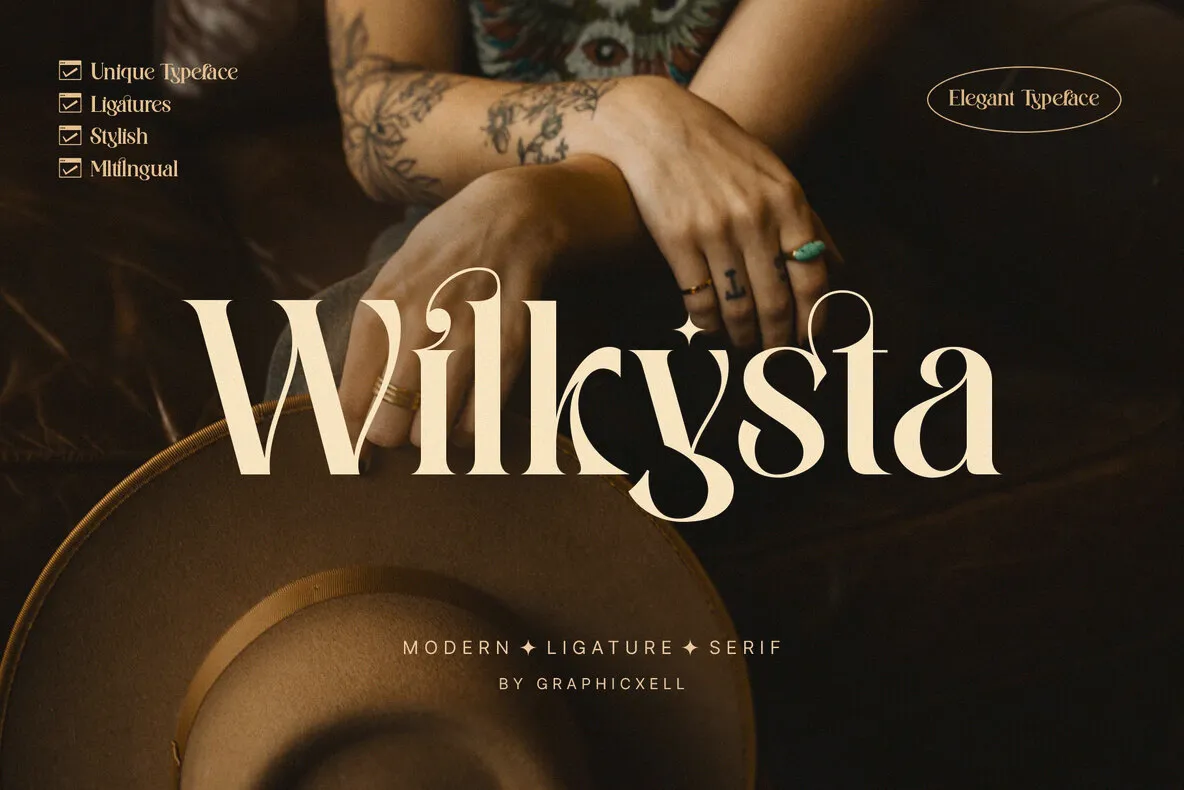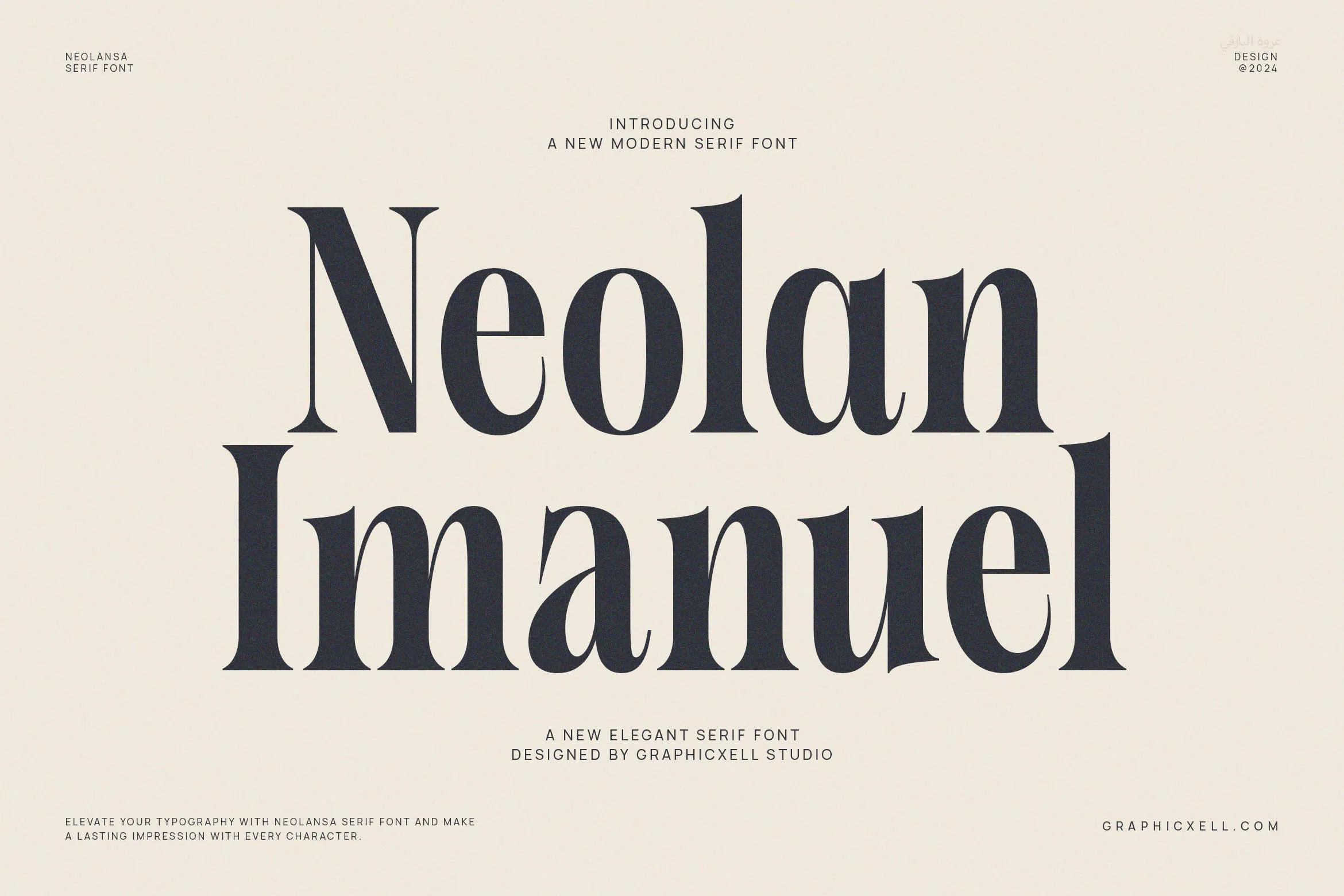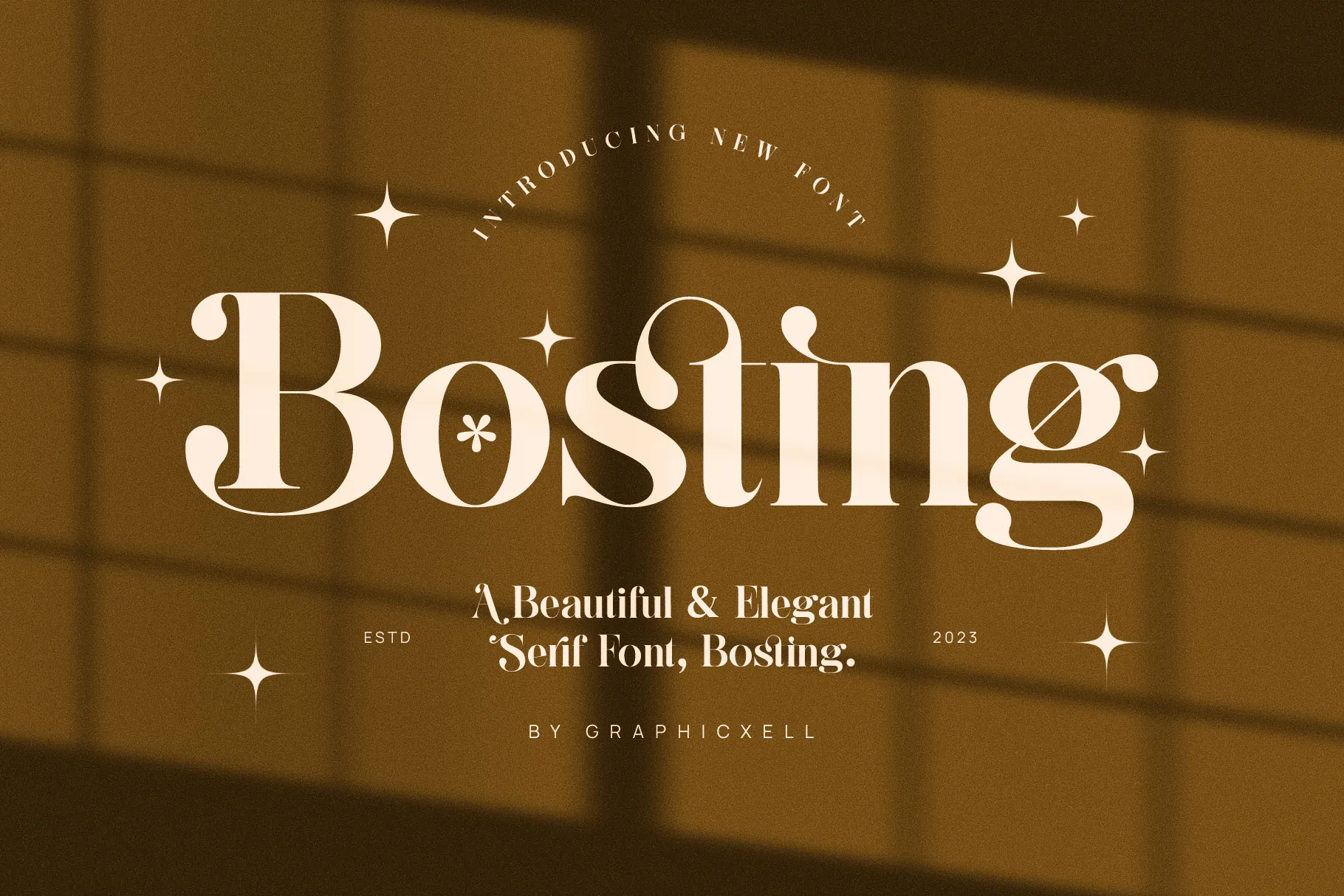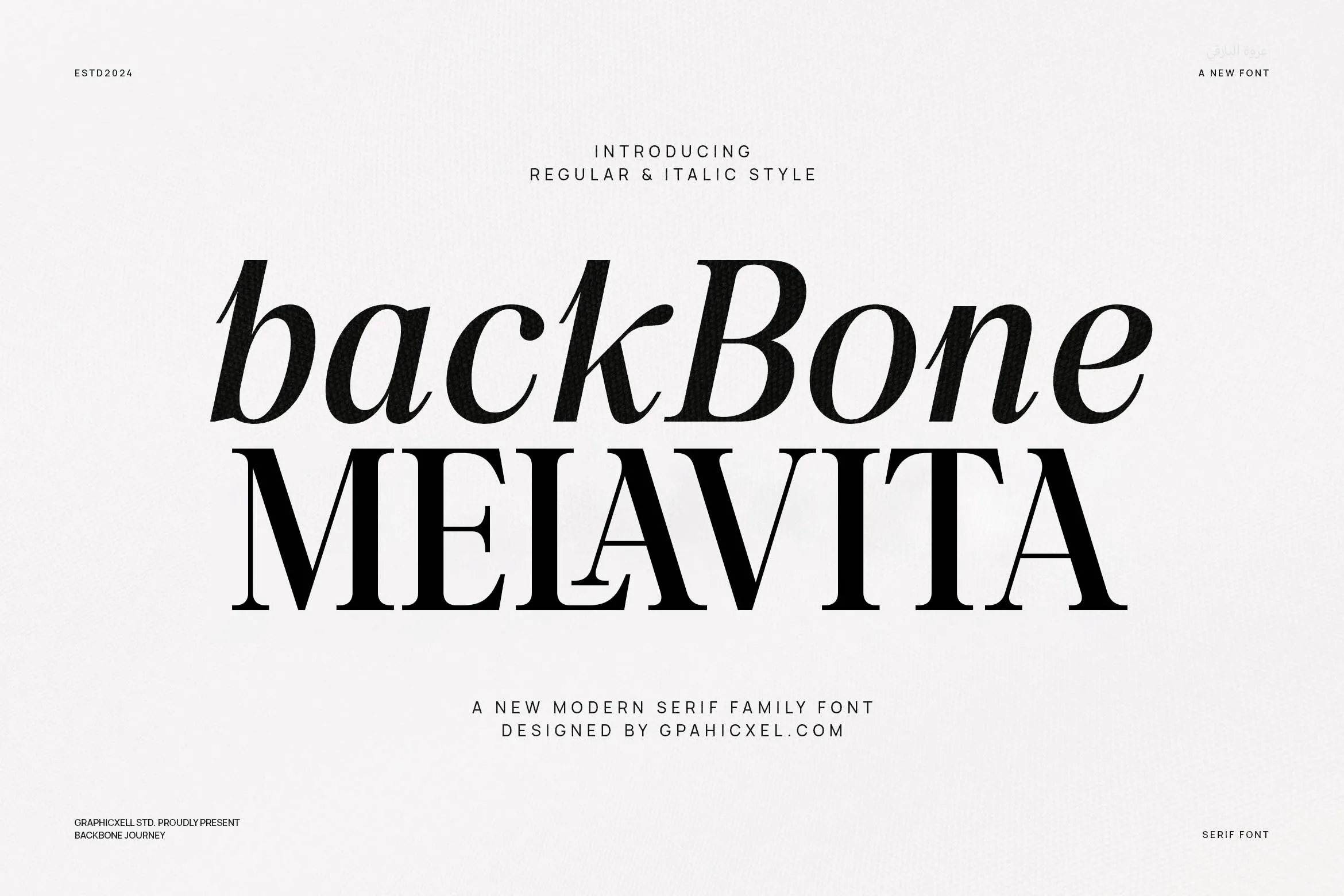
Are you looking to add a touch of grit and personality to your projects? Look no further than the world of Western fonts. They are a powerful tool for designers looking to create a bold and impactful visual aesthetic.
From classic serif styles to modern sans-serif designs, these bold and evocative typefaces evoke the spirit of the Wild West. They add a unique flair to posters, logos, packaging, and more.
Western fonts have a long history, beginning in the Roman Empire and the American frontier. The Romans created the Latin alphabet, which laid the groundwork for many Western typography. Over time, these fonts evolved with cultural and technological advancements, especially the invention of the printing press in the 15th century, which made them widely accessible.
In the American frontier, clear and readable fonts were needed for signage and advertisements. These designs were often hand-painted or printed on rough paper, leading to thick, robust letterforms with decorative serifs.
Western fonts, influenced by historical and practical needs, share certain characteristics that distinguish them from other typographic styles. These include:
These fonts are all about making a statement. Their thick letterforms create a sense of strength and presence, making them perfect for grabbing attention on posters, packaging, or logos.
Many Western fonts incorporate serifs, and decorative flourishes at the ends of letters. These serifs can be sharp and pointed, ideal for a more masculine design, or rounded and playful, suitable for projects with a more lighthearted Western theme.
A Western font often has a hand-drawn or vintage feel, achieved through subtle imperfections or textures in the letterforms. This evokes a sense of nostalgia and the Wild West era, making them perfect for designs that want to capture that historical spirit.
Despite their bold nature, well-designed Western typography prioritizes readability. The thick strokes are carefully balanced with clear letterforms to ensure the message remains clear and easily understood, even from a distance.
They are incredibly versatile and can be used for a wide range of design purposes, from branding and advertising to website design and editorial layouts. The key is choosing the right font with the appropriate boldness and serif style to match your specific project’s tone and message.
You can use them in numerous ways to enhance your designs. Remember, these fonts can be a powerful tool in your design arsenal, but it’s important to use them strategically. Here are a few tips:
These fonts work best when used in large sizes, where their bold details can shine. They are effective for headlines, logos, and branding elements. Consider how you can use their strong presence to draw attention to key elements in your design.
Explore the vast array of Western typeface styles available, from classic and traditional to modern and minimalist. Consider the mood you want to create and choose a font that aligns with that feeling. For example, a bold serif font might be perfect for a vintage-inspired project, while a clean sans-serif font could be ideal for a modern design.
Because of their strong presence, pair these fonts with simpler designs to avoid visual clutter. Give your font room to breathe! Leave plenty of breathing room between elements with white space for a balanced look. Too many competing elements will distract from the impact of your Western font choice.
Nail visual appeal and readability with smart spacing and alignment. Experiment with different letter spacing and line heights to find what works best for your chosen font. Make sure the alignment is consistent throughout your design to maintain a cohesive look.
Western fonts are perfect for projects with a Western, vintage, or rustic theme. They can add authenticity and a touch of nostalgia to your designs. Think about how to use them to create a sense of place or evoke a particular feeling.
Now, let’s dive into some fantastic, bold, stunning Western fonts that will infuse your designs with a Wild West flair.
Neolan Imanuel is a modern and elegant serif font that exudes sophistication. Its delicate strokes and subtle curves create a timeless and refined aesthetic. This font is perfect for branding, website design, editorial layouts, and more. This font’s adaptability makes it perfect for projects seeking a sophisticated, fine look.
Milkysta is a versatile sans-serif font blends a modern feel with classic elements. With its crisp lines and geometric forms, this font is well-suited for various design applications, from websites and branding to printed materials and social media graphics.
Back Bone Melavita boosts personality into your project designs with its bold presence and distinctive character. Its unique letterforms and playful curves create a fun and energetic vibe. This font is perfect for branding, packaging, and other projects where a bold statement is desired.
Western typography is a powerful tool for designers looking to create bold and impactful designs. By understanding the history, traits, and best uses of these fonts, you can effectively incorporate them into your design projects and create stunning visual experiences. Explore the vast world of Western fonts and discover the perfect style for your next creative endeavor.